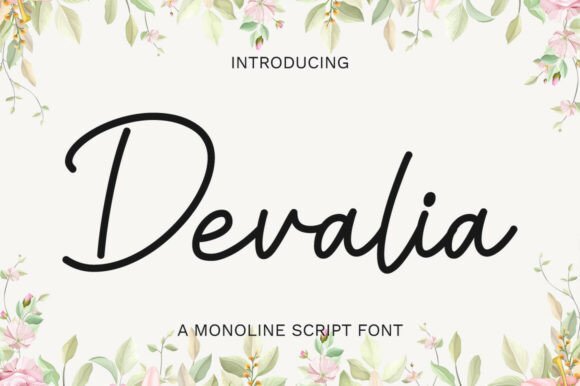
Unleash the Art of Handwritten Charm
Have you ever found yourself scribbling down a quote or a phrase in a notebook, only to be drawn back to it hours later for its unique charm? This is the magic of handwritten fonts – a way to add a personal touch to our designs and connect with our audience on a deeper level. For designers seeking to create memorable logos, branding, and quotes, the Devalia Font is a timeless choice that’s sure to captivate.
With its elegant, cursive script, Devalia Font is the perfect tool for adding a touch of sophistication to any design. Whether you’re working on a logo, a quote, or a piece of branding, this lovely font is sure to make a lasting impression. Its versatility and classic appeal make it a valuable asset for designers looking to elevate their work and connect with their audience in a meaningful way.
- Unique Characteristics: Devalia Font features a unique blend of modern and elegant design elements, with a subtle flair of sophistication that sets it apart from other fonts.
Devalia Font Review
First of all, I want to say that Devalia Font has some great features that make it a solid choice for designers. ✨ The font’s modern and clean design is perfect for creating a sleek and professional look for your projects. ✨ The font is also highly legible, making it easy to read even at smaller font sizes. ✨ Additionally, the font’s versatility allows it to be used in a variety of applications, from body text to headings and titles.
However, there are some limitations to consider. ⚠️ One of the main drawbacks is that the font’s character set is not as extensive as some other fonts on the market. ⚠️ This can be a problem if you need to use non-English characters or symbols in your design. ⚠️ Additionally, the font may not be compatible with all operating systems or software, which can cause issues with font rendering and consistency.
- Modern and clean design
- Highly legible
- Versatile and suitable for a variety of applications
- Limited character set
- Potential compatibility issues with operating systems or software
Overall, Devalia Font is a solid choice for designers who want a clean and modern look for their projects. While it has some limitations, its versatility and legibility make it a great option for a variety of applications.
Devalia Font is ideal for:
- Business cards and branding materials
- Magazine and newspaper headlines
Remember to use Devalia Font in moderation to avoid overwhelming your design with too much